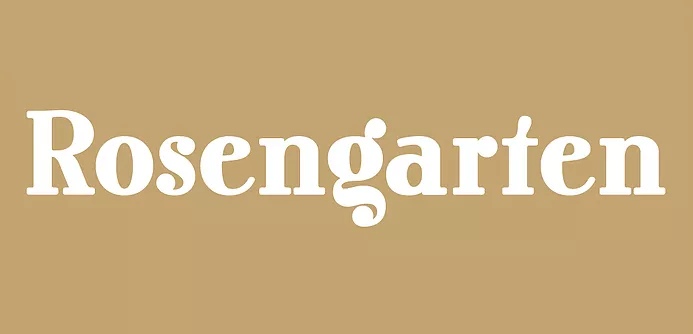
Rosengarten Font
Rosengarten Font is perfect for romantic branding projects, floral boutique designs, garden center signage, botanical illustrations, romantic wedding invitations, vintage tea shop graphics, artisanal flower packaging, and enchanted fairy tale layouts.
This exciting Rosengarten Font blooms with romantic elegance and botanical charm that captures the essence of secret gardens and vintage rose collections. The font's delicate beauty and whimsical character make it an exceptional choice for projects requiring romantic atmosphere, natural elegance, and enchanting appeal that resonates with audiences who appreciate feminine grace and botanical aesthetics.
The Rosengarten Font family includes multiple blooming variations such as Regular, Light, Bold, Ornate, Flourished, and Garden Script versions, providing designers with comprehensive options for creating romantic brand communications and botanically inspired typographic compositions with authentic floral charm.
Cultivate romantic typography with Rosengarten Font Free Download - a beautifully crafted typeface that embodies the timeless romance of Victorian gardens and botanical artistry. This versatile font combines natural elegance with contemporary functionality, making it ideal for brands and projects that need to communicate romance, beauty, and organic sophistication.
The botanical character of Rosengarten Font makes it particularly valuable for florists, garden centers, romantic venues, and artisanal businesses that need to convey natural beauty, romantic atmosphere, and organic elegance. Its floral styling appeals to audiences who appreciate nature-inspired design, romantic aesthetics, and handcrafted beauty experiences.
Design specialists choose Rosengarten Font for its authentic romantic atmosphere and exceptional versatility across various botanical applications. The font maintains its garden charm from intimate wedding stationery to large greenhouse signage, ensuring consistent romantic branding and natural appeal throughout all botanical communications.
The enchanting personality of Rosengarten Font creates immediate emotional connections through powerful associations with romance, nature, and botanical beauty. This makes it invaluable for brands seeking to leverage natural romance and garden mystique for marketing campaigns and romantically themed brand positioning.
Romance-focused brands utilize Rosengarten Font to establish authentic identities that communicate natural beauty, romantic tradition, and botanical heritage in competitive lifestyle markets. The typeface's garden appeal helps businesses differentiate themselves while attracting consumers who appreciate romantic experiences, natural beauty, and artisanal botanical products in their lifestyle choices.